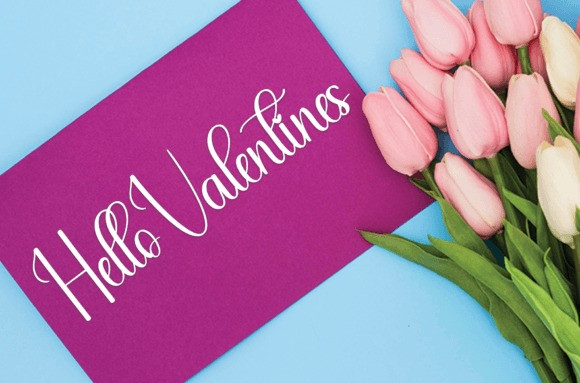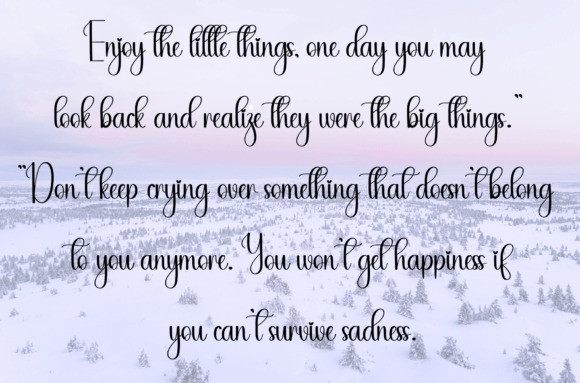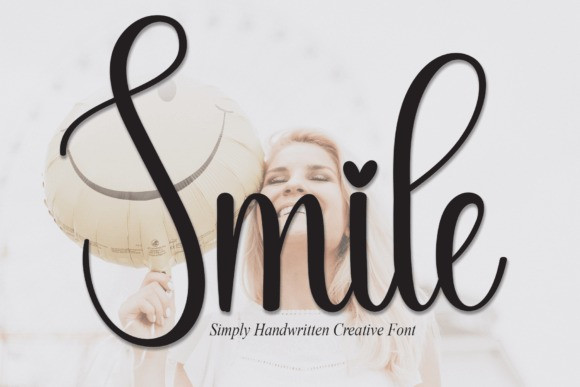
Smile Simply Font
Smile Simply Font, is a sweet and friendly handwritten font. Creative and cute, this font is ideal for writing wedding invitations, cards, or any other design that might need a fun touch!